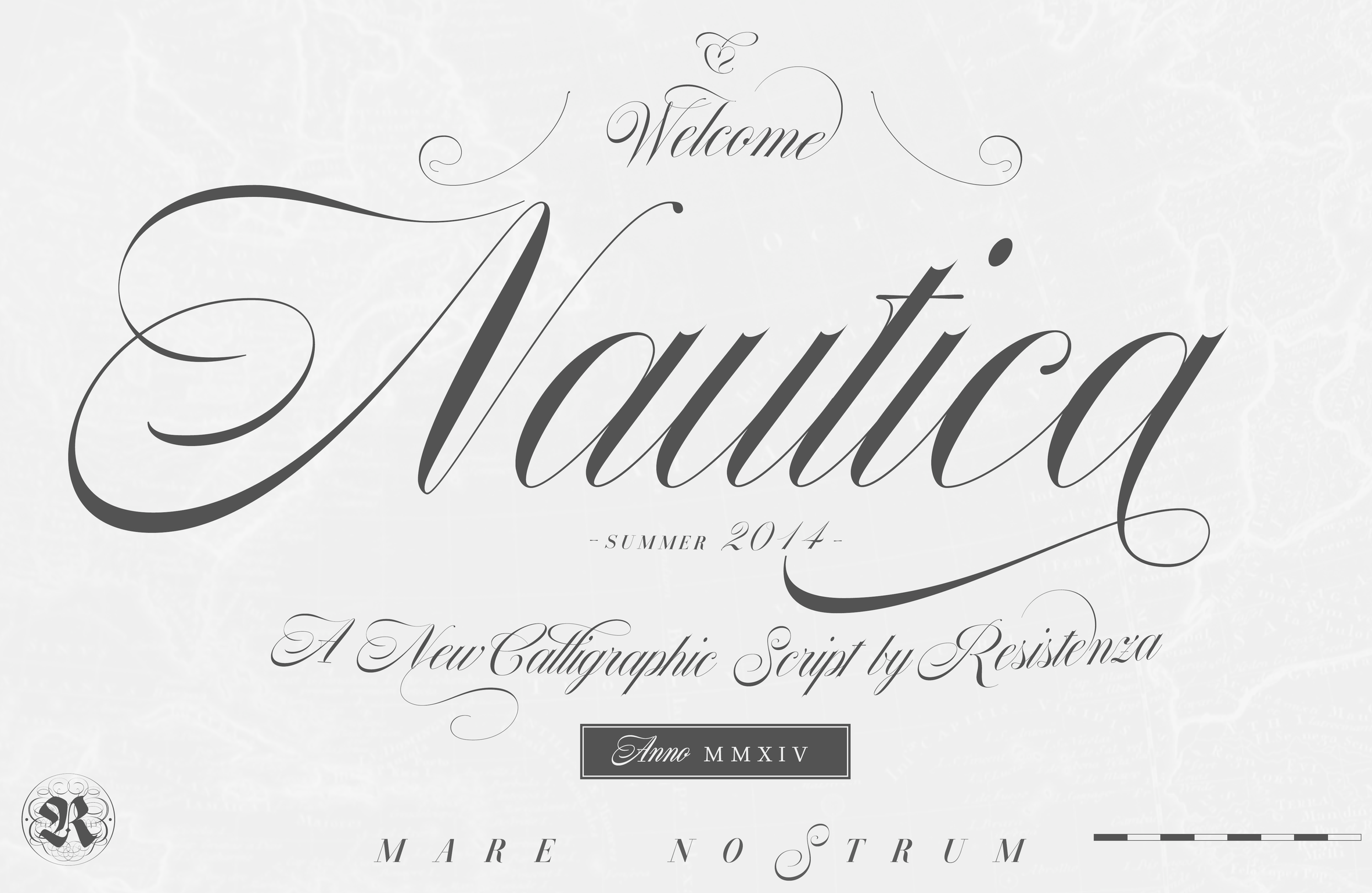
The best typefaces of 2014: Luc's selection
This is my own selection of the best commercial and non-commercial typefaces published in 2014, grouped by category.
Text typefaces:
• Amster Pro (Francisco Galvez Pizarro, Pampa type). The original is from 2008.
• Berenjena (Javier Quintana Godoy). This charming antiqua text typeface from 2007 won a Tipos Latinos award in 2012 but was only published in 2014 by Pampa Type.
• Kaius (Lisa Fischbach). A University of Reading typeface family created for very small text.
• Pratt Nova (Nick Shinn). Shinn's 17-style large x-height typeface family strives for visual and semantic opulence, equipping the typographer with a comprehensive array of harmonized fonts, all rigorously drawn, superbly fitted iterations of a single, profoundly original design.
• GT Sectra (Dominic Huber, Marc Kappeler and Noel Leu at Grilli Type). Broad coverage, angular design, readable yet elegant, the works.
• Milio (Josep Patau Bellart). A ten-style transitional family.
• FF Franziska (Jakob Runge). A multidimensional typeface family based on Runge's 2012 Masters project.
• Big Moore (Matthew Carter, Font Bureau). Based on a 1766 specimen by Isaac Moore.
• Mengelt Basel Antiqua (Christian Mengelt, Linotype). Based on the Basel types from the 16th century, this typeface family for Latin, Cyrillic and Greek brings classical and relaxing Venetian charm.
• Garibaldi (Henrique Beier, Harbor Type). Angular and based on calligraphic strokes, this is quite powerful and legible.
• Tautz (Mariya V. Pigoulevskaya, The Northern Block).
• Essay Text (Stefan Ellmer, TypeTogether). A warm slightly angular and extremely legible book text typeface.
• Epica (Oscar Guerrero, Sumotype).
• Leidener (Jesus Barrientos). Based on letters used by the Elzevir family in their workshop in Leiden.
• Pesaro (Dieter Hofrichter).
Sans typefaces:
Type systems:
Art deco typefaces:
Hipster typefaces:
Script typefaces:
Sketched, Layered or Poster typefaces:
Blackletter typefaces:
Dingbats and ornaments:
• Tepu (Sergio Ramirez Flores, Latinotype). A large set of infographics icons with rounded shapes.
Garalde typefaces:
Display typefaces:
• Orwellian (Shiva Nallaperumal, Lost Type). The Italian genre refitted for 2015.
• Jeames (Kyle Benson).
• Spot Mono (Lauri Toikka and Florian Schick). Attractively rounded monotype typeface.
• Vezus Serif Texture (Slobodan Jelesijevic).
• Brute (Kirby Matherne, Ten Dollar Fonts). A layered beveled type system with oomph.
• Manola (Ira Lensberr). An expressive lapidary typeface family with applications in stonecutting.
• Getter (Camilo Zamora). A large family influenced by Japanese robots and advertized as Bogotá cyberpunk.
• Attica RSZ (Giuseppe Salerno). A Western typeface inspired by Caslon's Italian and Aldo Novarese's Estro.
• Rubik One (Elvire Volk Leonovitch, under art direction of Philipp Hubert and Sebastian Fischer at Hubert and Fischer). A rounded heavyweight sans of attractive proportions. It is a free Google Web Font.
• Hedon Display (Dusan Jelesijevic).
• Valter (Nikola Djurek, Typotheque). A variable contrast sans inspired by pointed-pen writing.
• Helsinki XXL (Ludwig Übele). Helsinki XXL Black and Helxinki XXL Thin are free additions to Übele's successful Helsinki typeface family.
• TDL Ruha Hairline and Latin (Tipos das Letras). A didone foundation morphed into a slab serif and wedge serif pair of typefaces.
• Marigny (Tal Leming). This warm roundish display typeface might just as well fit into the text typeface category.
• Briller (Nikola Kostic). A striking ultra-wide sans typeface family.
• UT Amen (Marco Virgillito). In search of the fattest and artsiest poster typeface.
• Jack London (Terezija Donlic). A fat and lively poster typeface family based on a revival.
• Terrorista (Tony de Marco and Bernardo Faria, Just in Type). A masculine sans headline typeface created to honor all those who fought against Brazil's military regime from 1964 until 1985.
• Lichtspiele (Stefan Huebsch). Retro cinema marquee and lettering typeface family.
Slab serif typefaces:
Copperplate:
Wood type revivals:
• HWT Artz (Erik Spiekermann, P22). A true wood type with a digital version added to support the Hamilton Wood Type Museum.
• Dobro (Mariana Alen).
Letterpress emulation:
Didone typefaces:
• Jeles (Slobodan Jelesijevic, Tour de Force). A soft-edged didne typeface family with large x-height.
• Surveyor (Hoefler). A mapmaker and newsprint font family.
• Lewis (Alexandre Saumier Demers). A graduation typeface family at KABK in Den Haag, this didone family was specially designed for typesetting mathematics and for use with TeX.
• Yo Italic series by James Montalbano. One hundred didone italics were added in 2014 to the 100 regular didones from 2010.